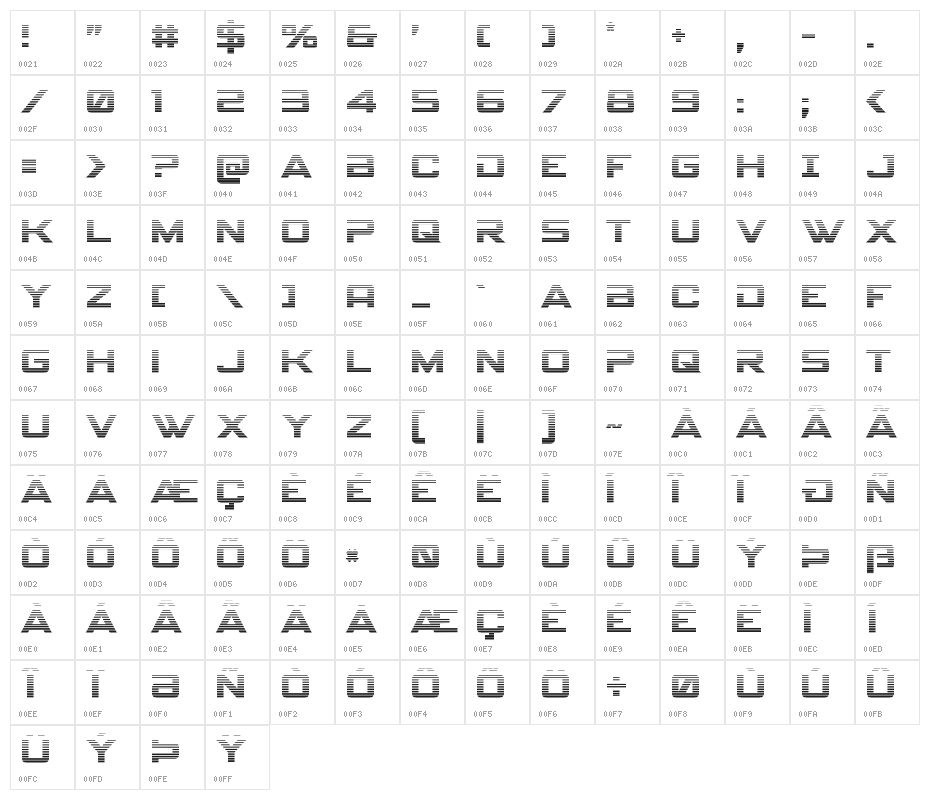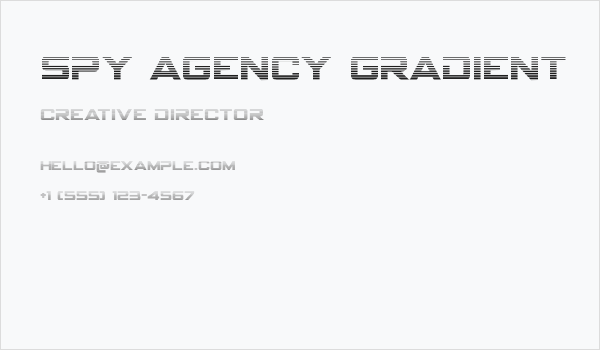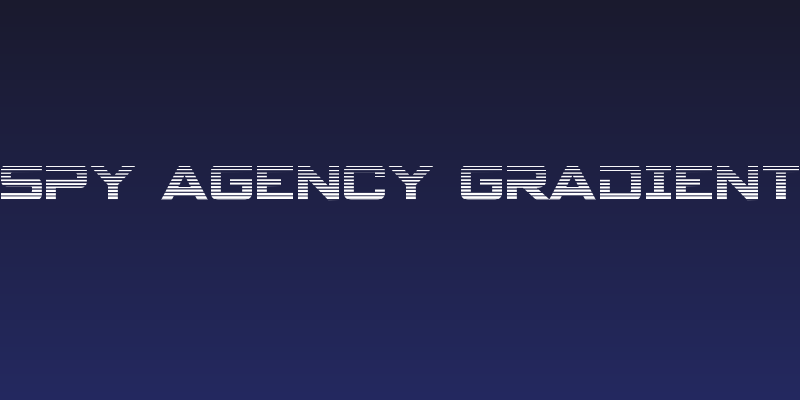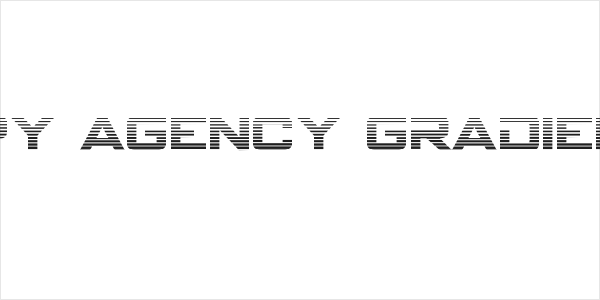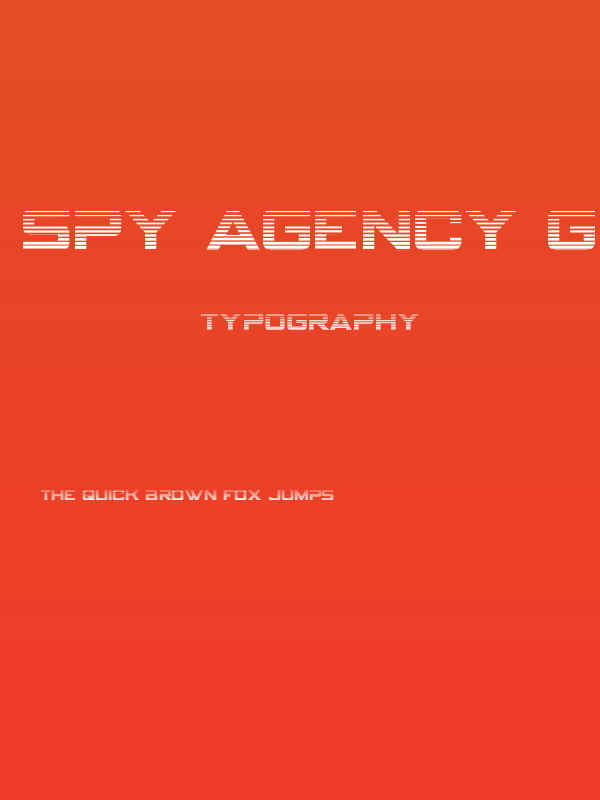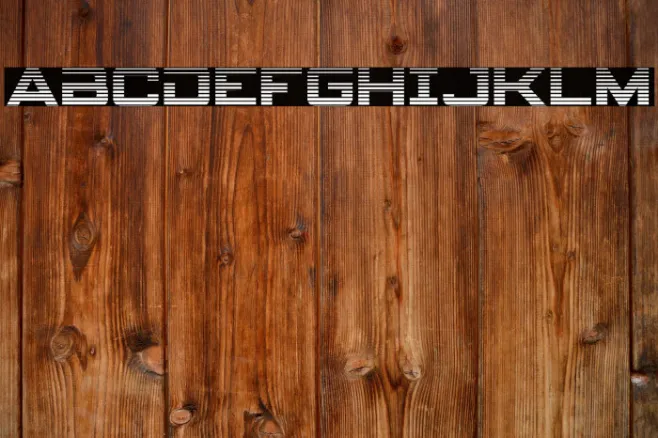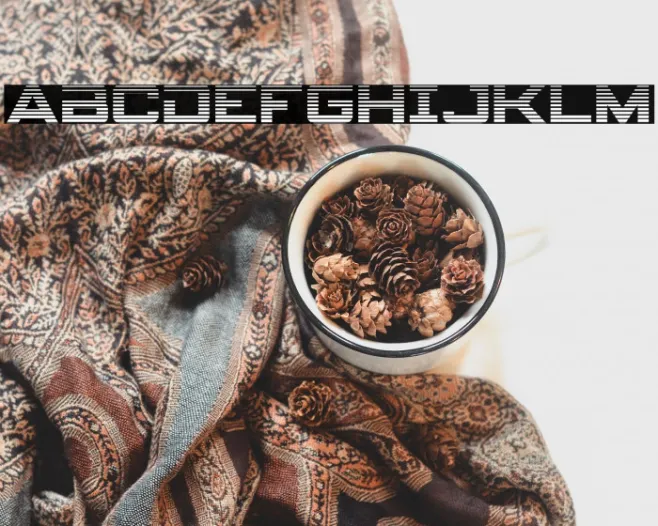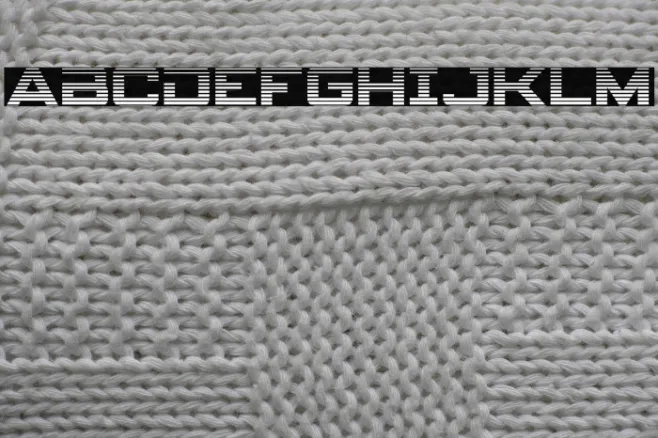
Spy Agency Gradient Font
Spy Agency Gradient Description
This font features a futuristic, digital aesthetic with a distinct horizontal line pattern running through each character. The uppercase and lowercase letters maintain a consistent geometric structure, giving it a cohesive and modern look. The numerals and special characters follow the same design principles, ensuring uniformity across all glyphs. The font's unique style is reminiscent of digital displays or high-tech interfaces, making it ideal for projects that require a cutting-edge, technological feel. The spacing between characters is tight, enhancing its compact and streamlined appearance.
| Proposed Projects | Ideal for tech-themed designs, video game interfaces, sci-fi movie posters, and digital branding. |